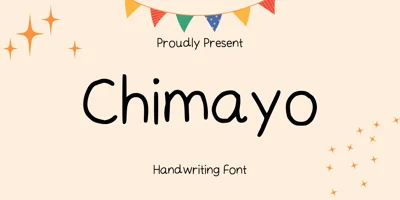
Chimayo Font
The Chimayo Font excels in various design applications including Southwestern cultural branding, Native American heritage projects, artisanal craft marketing, traditional weaving company identities, spiritual retreat communications, desert tourism promotions, regional restaurant signage, cultural festival materials, handcrafted pottery packaging, and authentic regional projects that demand indigenous sophistication and Southwestern charm.
What makes the Chimayo Font exciting is its authentic celebration of Southwestern cultural heritage through letterforms that capture the essence of traditional craftsmanship and indigenous artistry found in the historic weaving traditions of Chimayo, New Mexico. This typeface embodies the rich cultural legacy of Native American and Hispanic artisans through carefully crafted characters that suggest textile patterns, natural earth tones, and the spiritual connection to land that defines Southwestern culture. The font's cultural personality makes it perfect for organizations seeking to honor indigenous traditions, communicate authentic regional character, and celebrate the timeless appeal of handcrafted artistry through typography that respects and preserves cultural heritage.
The Chimayo Font family typically includes earthy weight variations that reflect traditional craft techniques, featuring organic styling options and extended character sets that support multicultural communication needs. These family options often include pattern-inspired alternates, cultural symbols, and indigenous decorative elements that provide designers with comprehensive tools for creating authentically Southwestern typography that honors traditional craftsmanship while maintaining contemporary relevance and cultural sensitivity.
Cultural heritage professionals and regional artisan brands consistently select Chimayo Font for projects requiring typography that establishes authentic connection to Southwestern traditions and indigenous craftsmanship. This typeface delivers exceptional performance in cultural communications, artisan marketing, and heritage tourism where demonstrating genuine respect for indigenous culture and celebrating traditional craftsmanship is essential for community trust and cultural preservation. The font's regional character makes it particularly effective for spiritual and ceremonial applications. Download Chimayo Font today to access this culturally rich typeface that transforms communications with its indigenous authenticity and Southwestern sophistication, creating compelling experiences that honor the magnificent artistic traditions of the American Southwest while preserving cultural heritage for future generations.